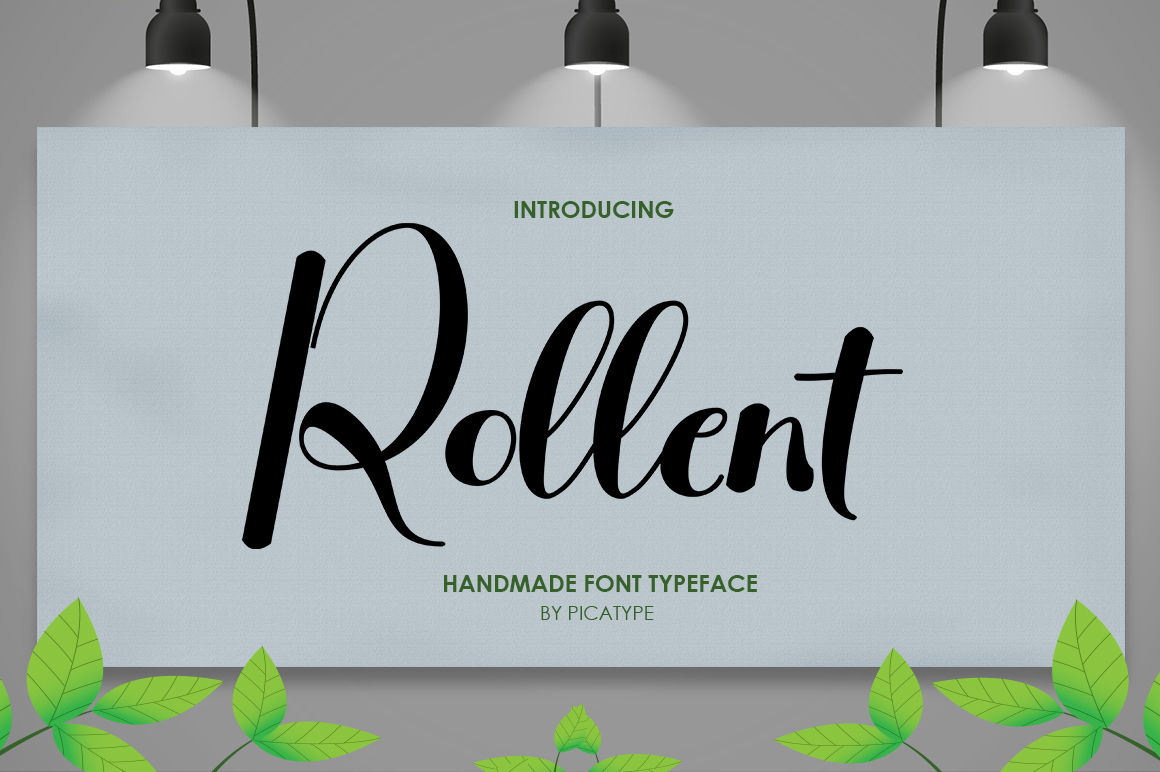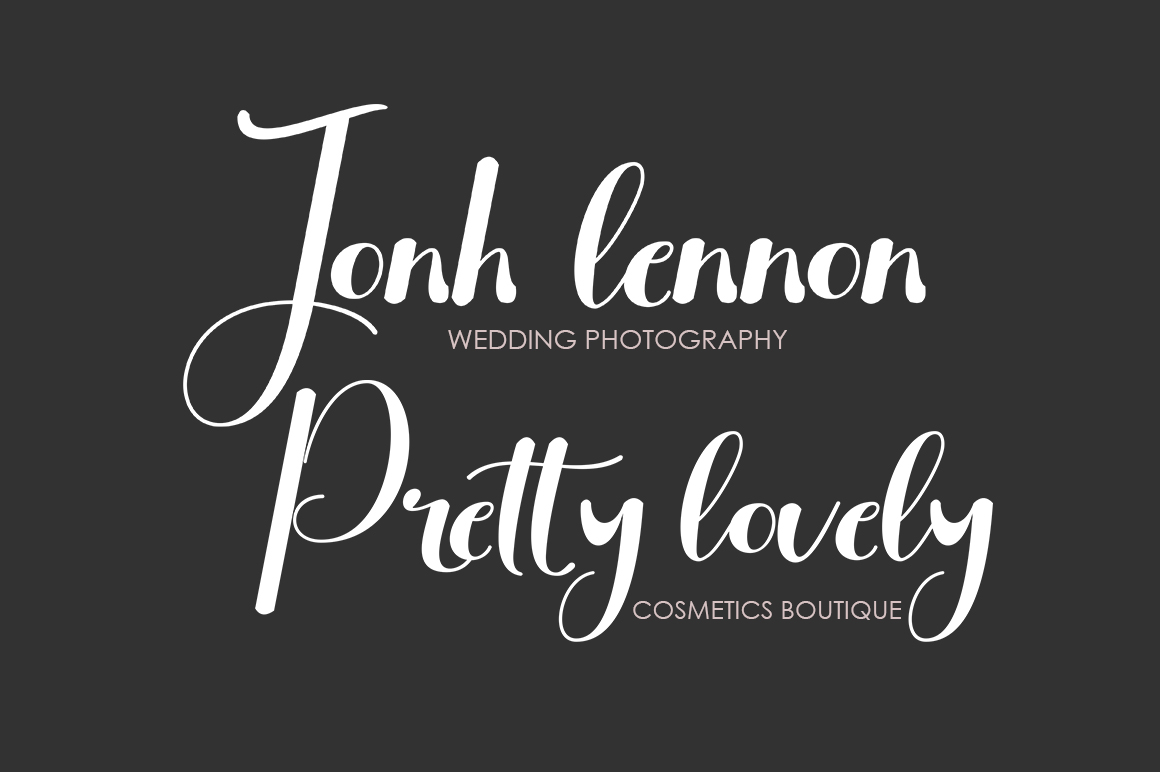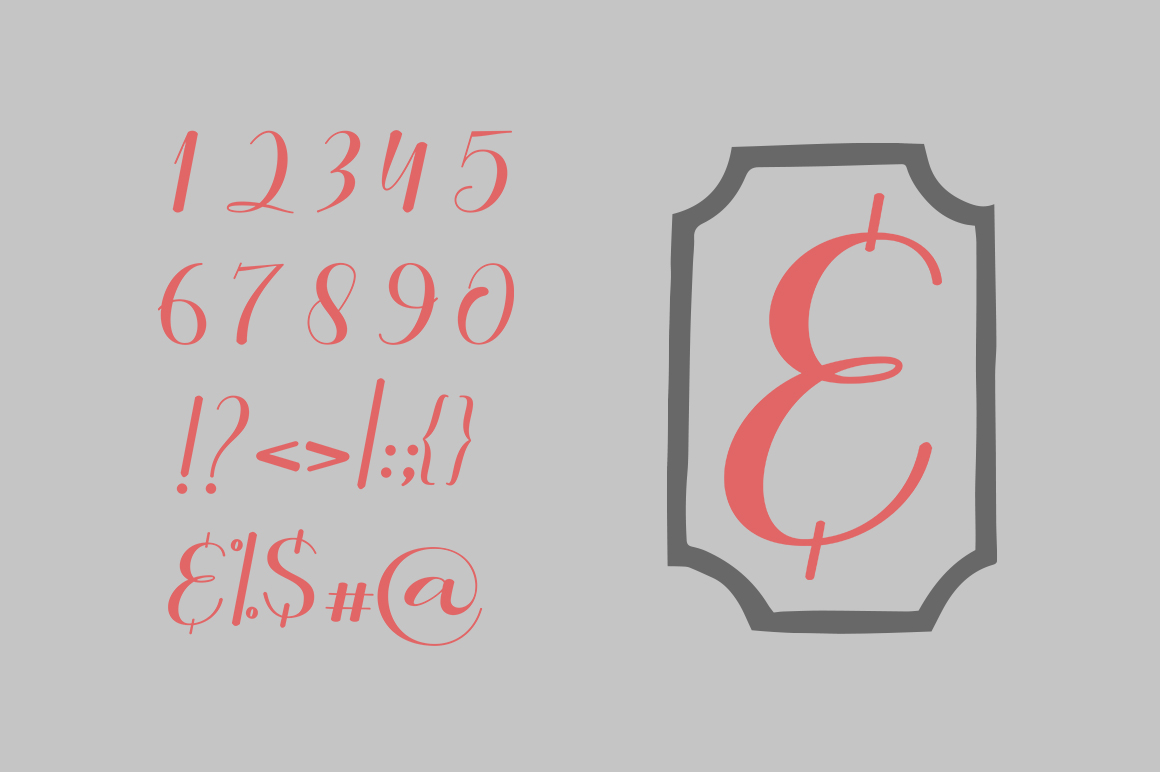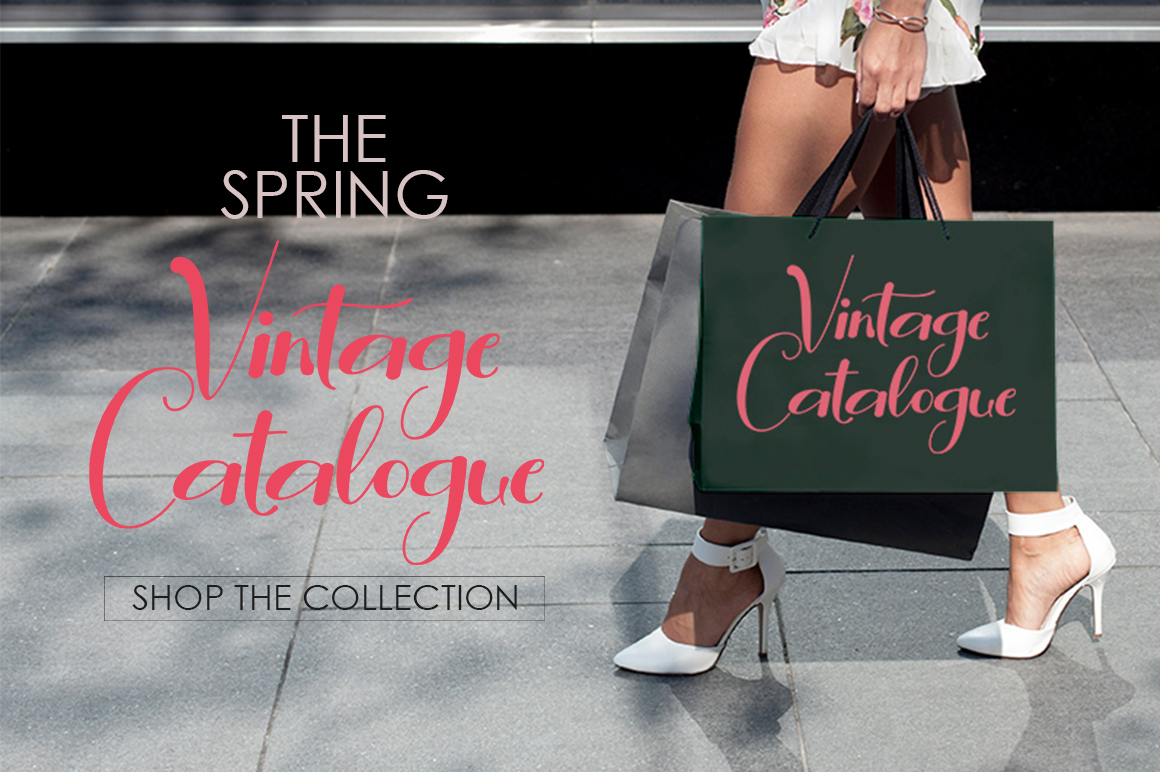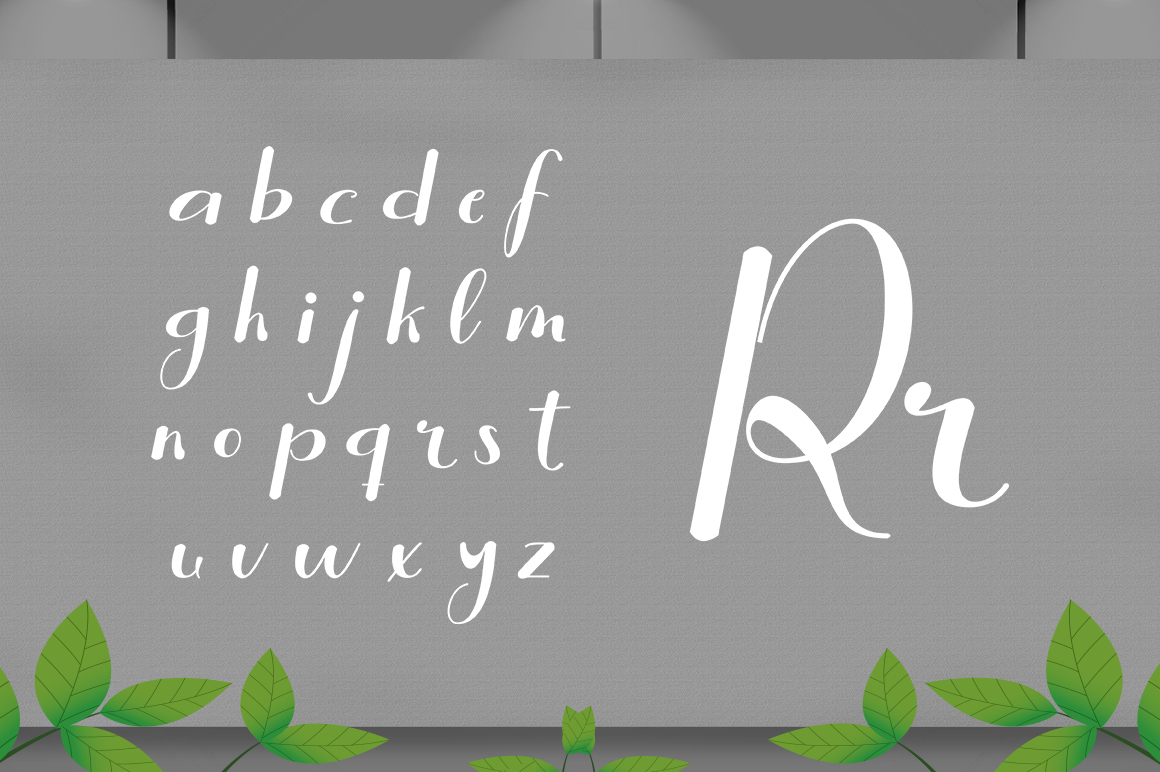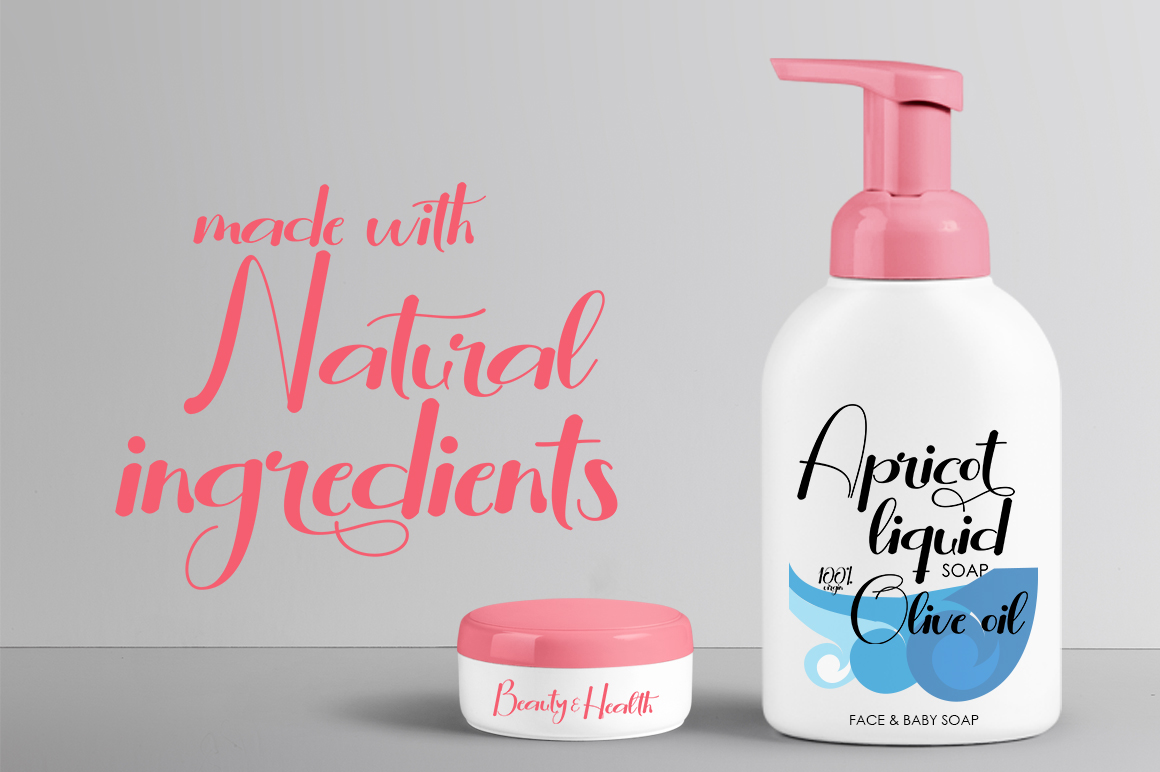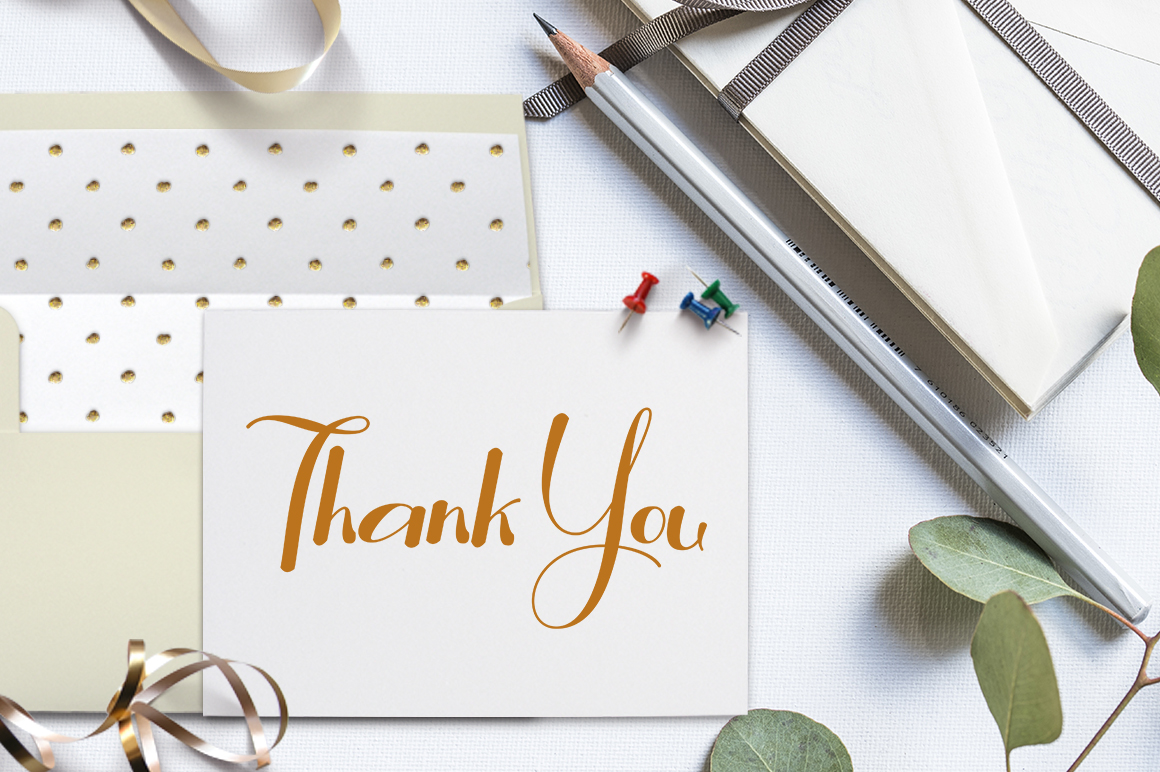
HomeScript FontsRollent Font Script Fonts Rollent Font FacebookXPinterestWhatsApp Rollent Font Poster 2 Rollent Font Poster 3 Rollent Font Poster 4 Rollent Font Poster 5 Rollent Font Poster 6 Rollent Font Poster 7 About Rollent Font Rollent Script is a free-flowing typeface. It has an organic feel and is painted completely by hand. DOWNLOAD NOW People also explored Magic of Christmas Font New Blackburn Font Natalia Liberty Font Gameday Font Trust Font Growler Script Font Hellowin Font Jasmine Rose Font Nikisha Font 440 0 TagsRollent Font Previous articleBush Market Script FontNext articleAutumn Moon Font LEAVE A REPLY Cancel reply Comment: Please enter your comment! Name:* Please enter your name here Email:* You have entered an incorrect email address! Please enter your email address here Website: Save my name, email, and website in this browser for the next time I comment. Personal Use Free Mini Story Personal Use Free Read more about this font Bamboomoe Personal Use Free Read more about this font Hello Sarrah Personal Use Free Read more about this font Vilsuve Personal Use Free Read more about this font BLOG How to Cut Any Font on Cricut: Convert a Font to SVG (Free) Turn any font into a clean SVG so it cuts crisp on Cricut - a quick 3-step workflow using a free font-to-SVG tool. Best Fonts for YouTube Videos: Make Your Thumbnails Stand Out Transform Your Website: Elevate Your Typography with 7 Best Web Font Generators 5 Fonts That Will Dominate Design Trends in 2026